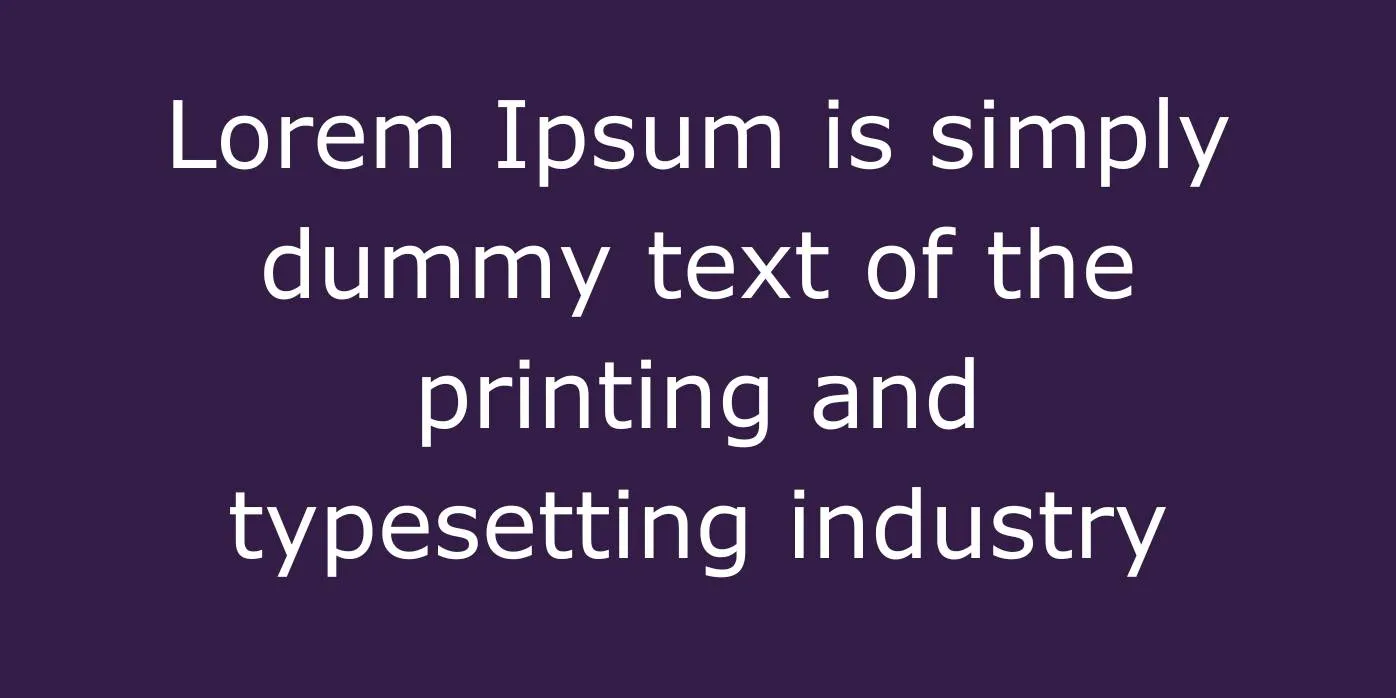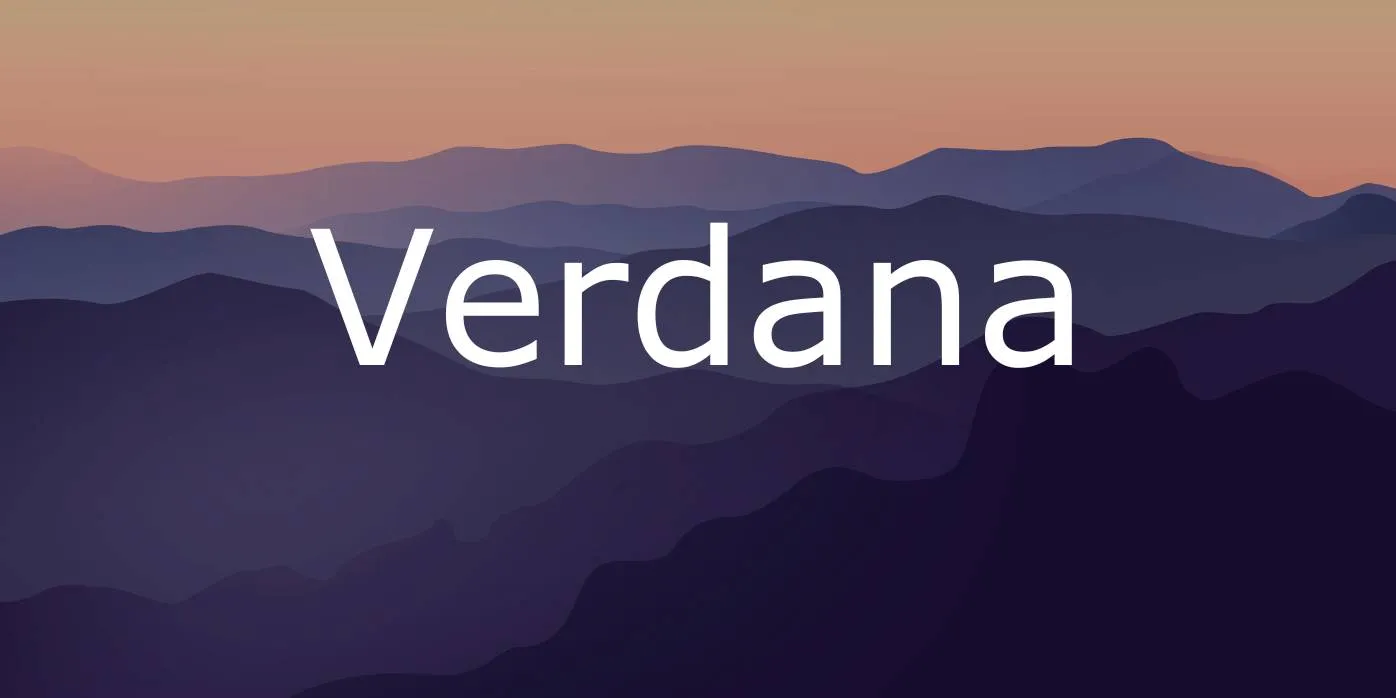
Verdana Font
Verdana font is a very neat and nice Sans- Serif Font. It was designed by Mathew Carter and manufactured by Microsoft typography. It was launched by Microsoft company in 1996. You can make so many different projects by using this font.
It has many features which make it look so clear and useful. It can also be used for small screens. This font has a large x height which makes it look clearer. There are also some of the font that is very similar to this font available on this website.
Like gotham font, it has the most similar appearance to this typeface. It has 255 characters, 224 glyphs, and 1000 units per Em. The weight of the font is Bold and its width is medium (normal). Unicode supported by this font is 2.0 and BMP only.
Languages supported by this font are Latin and symbols. This font is also a Google font which increases the worth of this typeface. It is also available in Google Docs with which you can easily select to write in the font.  Usage You can make so many different designs by using this font its neat and clean look makes it perfect for headlines. This font has characters, small letters, capital letters, numbers, symbols, punctuations, and special characters.
You can be used to design banners, posters, sign boards, flyers, and brochures On different types of pana flex and labels, you can also utilize this font. This texture can also be used for making business cards, invitation cards, and greeting cards. You can make or edit designs in Adobe Photoshop, CSS, and Canva by using this font. In Microsoft Word and other MS Office programs, you can make adorable presentations and projects with this font.
You can use this font for making so many different projects. It has a high readability and you can make projects even for small screens. You can make attractive posters, banners, flyers, and much more. Is Verdana a Web-Safe Font?
Yes, it has a very neat and clean look which makes amazing web designs. It looks so representable on screens. What is the most similar font to Verdana Font? This typeface has many similar fonts but the most similar font is Open Sans font which gives a very attractive look.